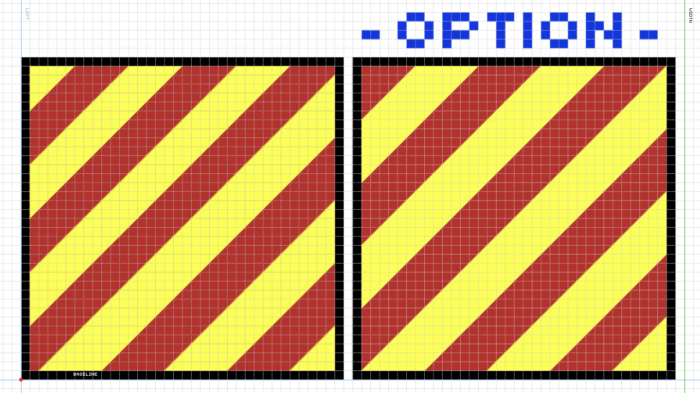
This is my first time creating a colored font. I like the nautical flags and thought make a font out of them would be a good idea. I added the numerical flags as well.
A - Alpha
B - Bravo
C - Charlie
D - Delta
E - Echo
F - Foxtrot
G - Golf
H - Hotel
I - India
J - Juliet
K - Kilo
L - Lima
M - Mike
N - November
O - Oscar
P - Papa
Q - Quebec
R - Romeo
S - Sierra
T - Tango
U - Uniform
V - Victor
W - Whiskey
X - Xray
Y - Yankee
Z - Zulu
Hi! First my congrats. I love these types of fonts made with FontStruct. Abusing your venebolence, I dare to propose a small modification on the diagonals of A and B that would make them look better, IMHO. I'm adding a couple of samples for your consideration. Thanks.
Thank you for the help. After I made the above graphic, I realized the A was looking a little pixelated and that is not what I wanted for this font. I would appreciate any further help.
You're welcome. Yes, I thought something like that. Another small issue that has caught my attention is the different width of the bands on the Y. I once again dare to make you a proposal to equalize them as seen below.
The Y flag has been updated.